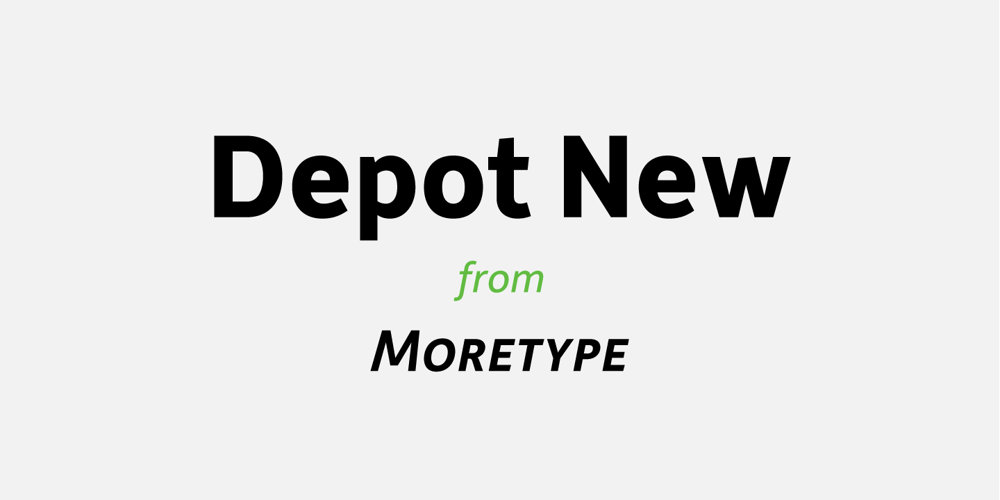
Depot New Font Family was designed by Chris Dickinson and published by moretype. Depot New contains 10 styles and family package options. Original released in 2006 Depot has now been updated to Depot New. While staying true to its original robust charm Depot New has been reexamined from the ground up with improved outlines, spacing, kerning and opentype features. Depot New also boasts two new weights with Thin and Thin Italic added to its arsenal, making it the perfect choice for the most demanding of jobs.